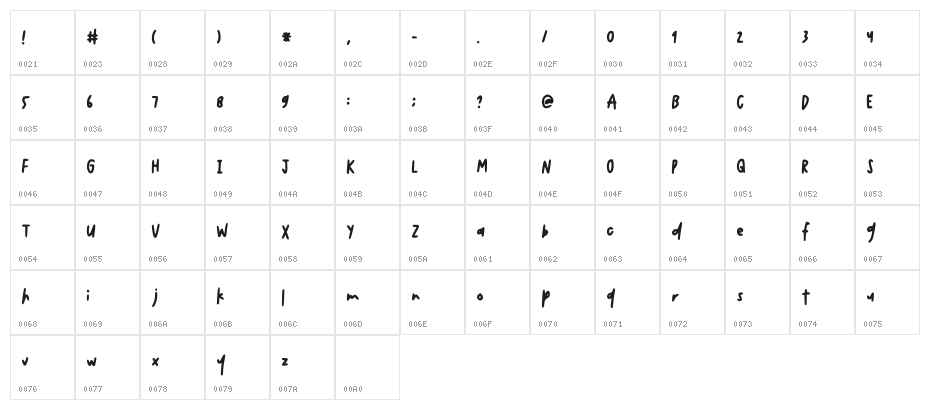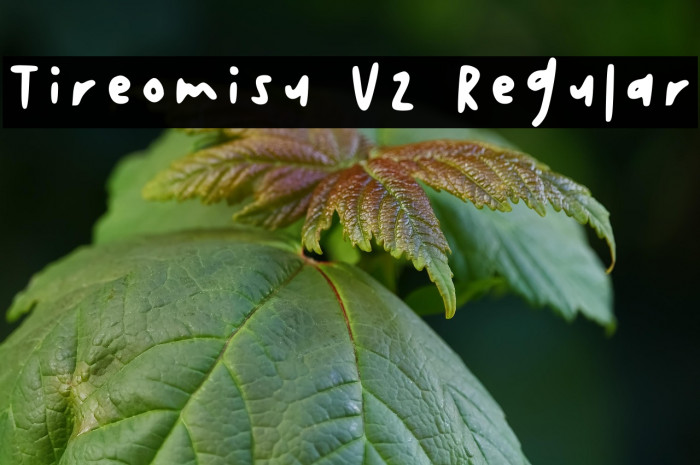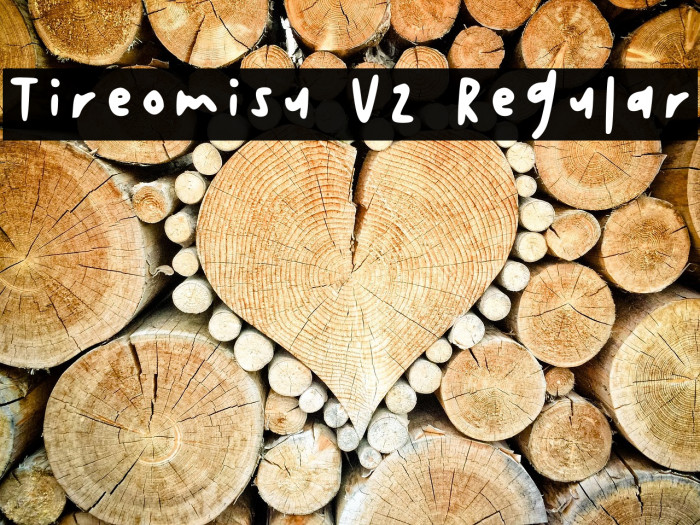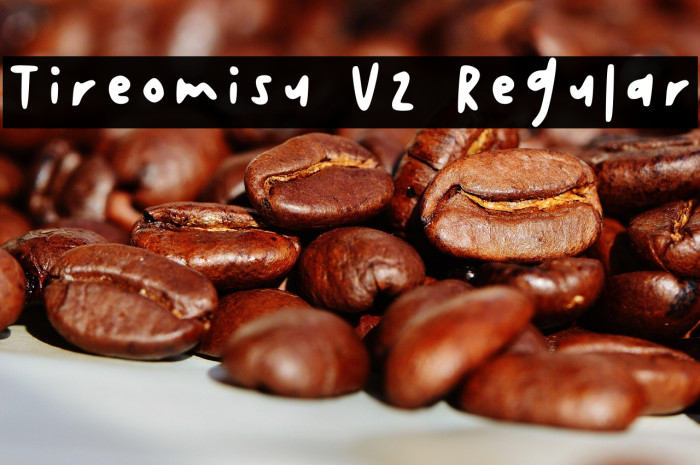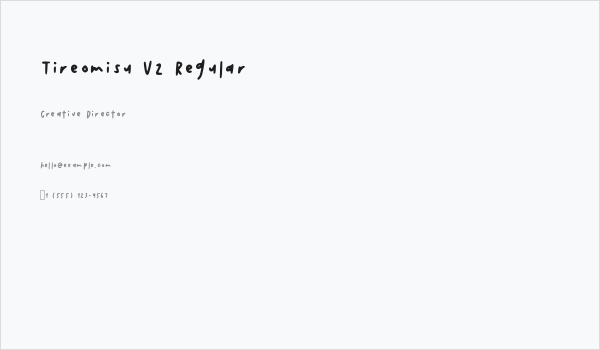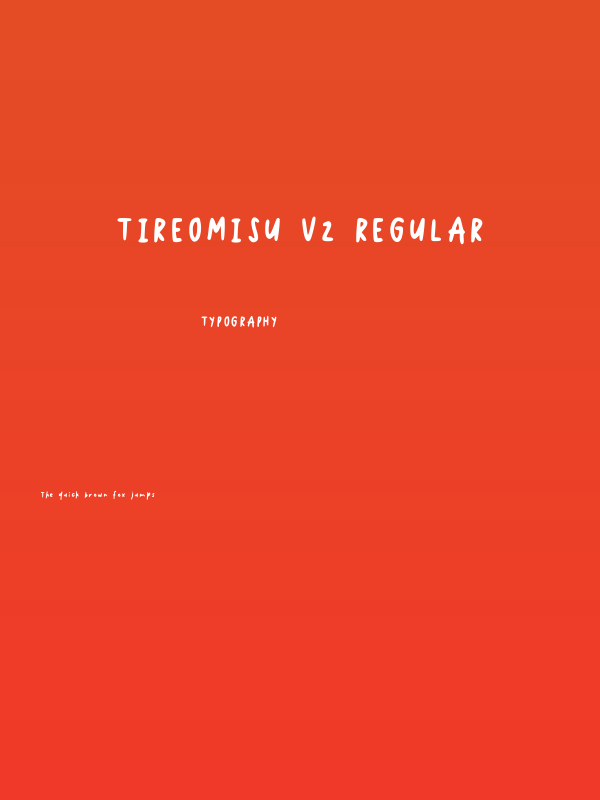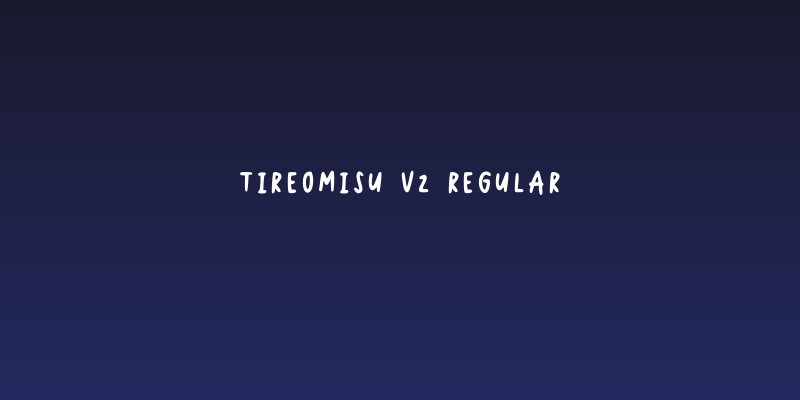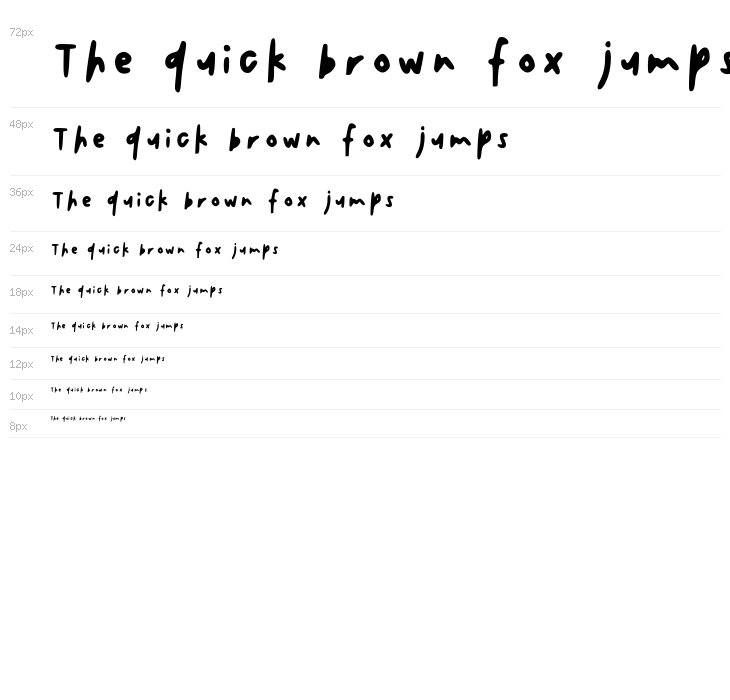
Tireomisu V2 Regular Font
Tireomisu V2 Regular Description
This font features a playful and casual handwritten style, characterized by its irregular strokes and organic flow. The letters have a slightly uneven baseline, giving them a dynamic and lively appearance. The uppercase and lowercase letters maintain a consistent style, with rounded edges and a friendly demeanor. The numerals and special characters complement the alphabet with similar whimsical qualities. This font is perfect for projects that require a personal touch, such as greeting cards, invitations, or creative branding. Its informal nature makes it suitable for conveying warmth and approachability.